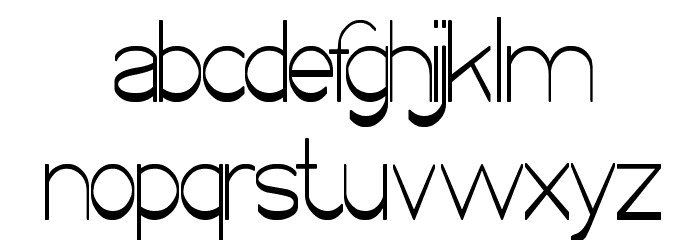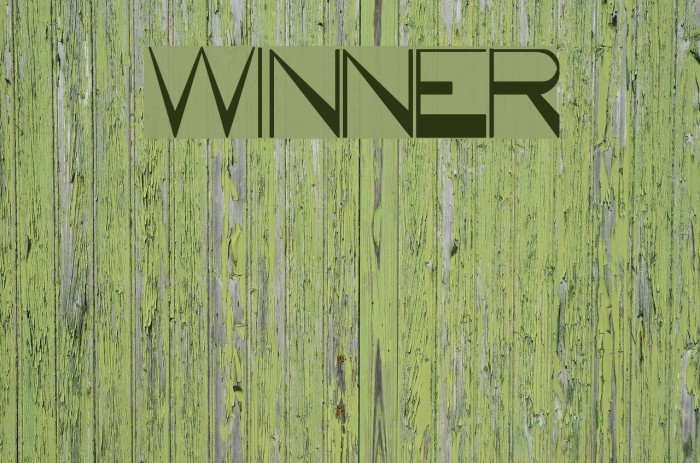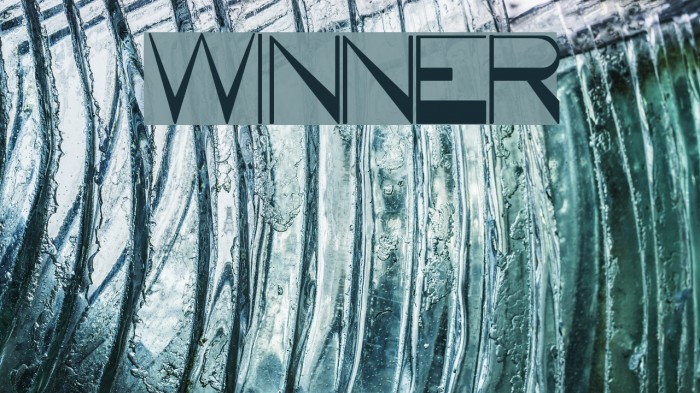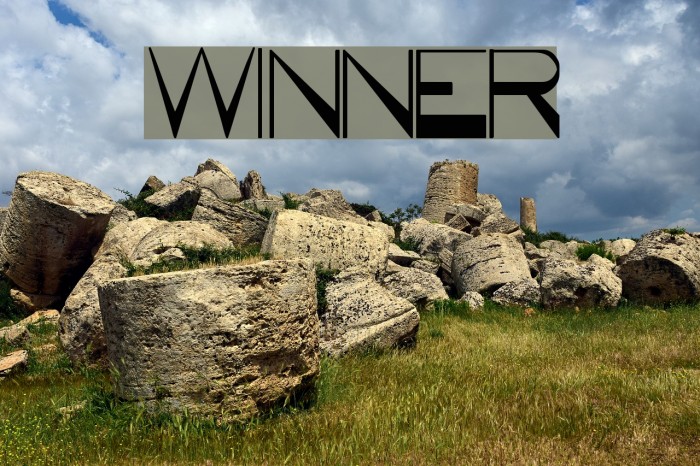
WINNER Font
This font features a modern and geometric design with a unique blend of thick and thin strokes, creating a high contrast that draws attention. The uppercase letters are bold and striking, with sharp angles and clean lines, while the lowercase letters maintain a more subtle and sleek appearance. The font's design is characterized by its futuristic and innovative style, making it ideal for projects that require a contemporary and edgy look. The characters are well-spaced, ensuring readability and visual appeal.
A modern, geometric font with high contrast and a futuristic style.
- Proposed Projects: Ideal for branding, advertising, and editorial design projects that require a modern and eye-catching typeface.
- Overall Style: Modern, Futuristic
- Use Case: Headlines, Logos, Branding